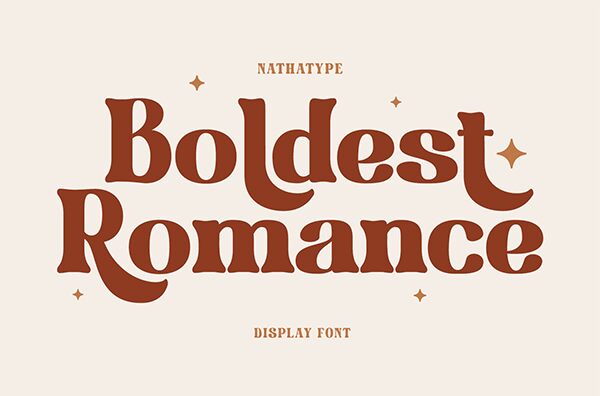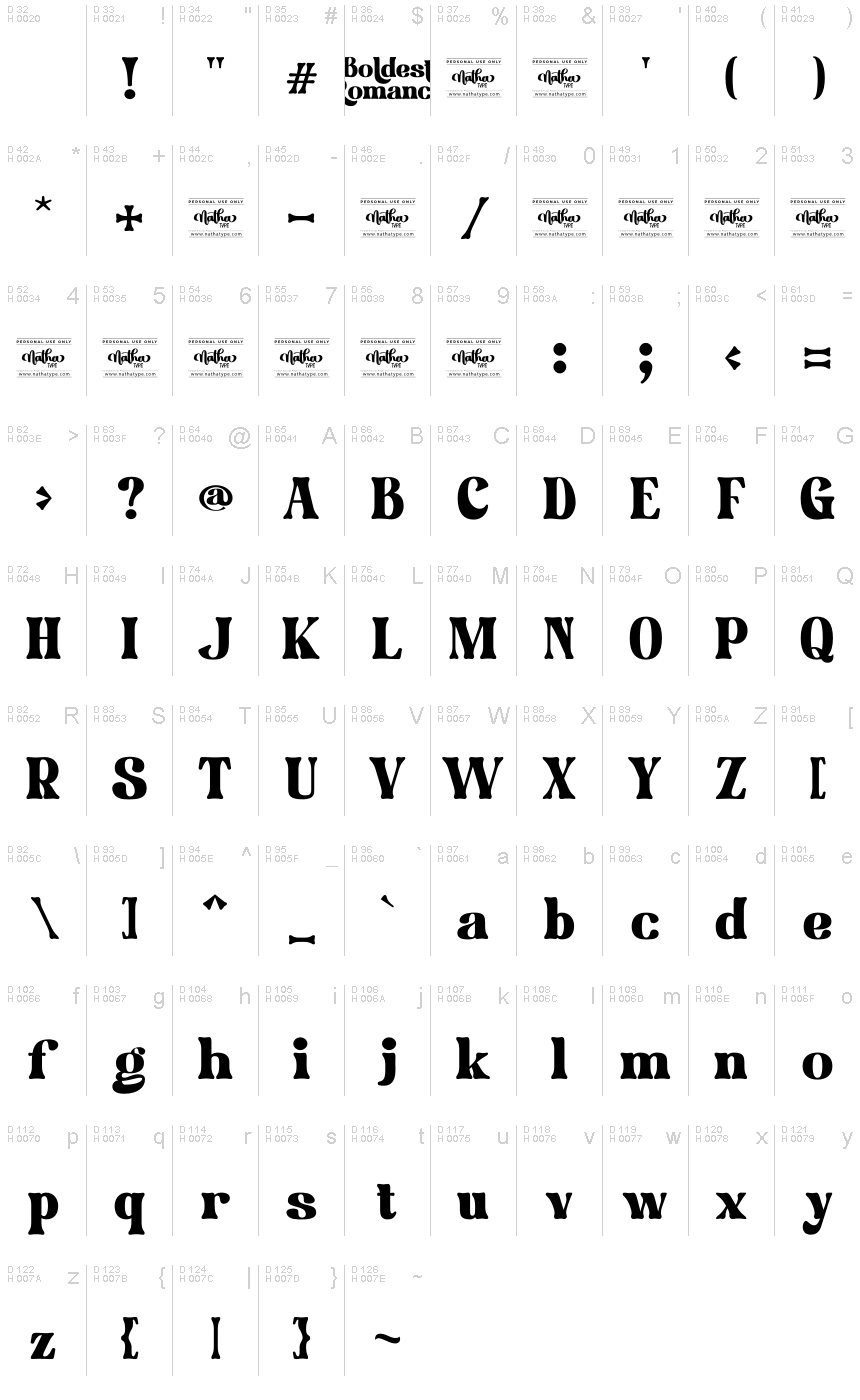
Boldest Romance, a captivating display font crafted by Nathatype, radiates a bold, retro-inspired elegance. With its assertive serif structure and striking weight, this font exudes a powerful, vintage-inspired aesthetic that commands attention. The harmonious interplay of thick and thin strokes creates a visually striking contrast, evoking a sense of timeless sophistication. Boldest Romance's bold presence and dramatic flair make it an impactful choice for attention-grabbing headlines, signage, and branding applications where a strong, distinctive typographic style is desired.
This versatile font lends itself well to a variety of design contexts, from classic editorial layouts to modern, retro-inspired aesthetics. Its bold, retro-infused personality makes Boldest Romance an ideal selection for vintage-themed projects, product packaging, and advertising campaigns seeking to convey a sense of historic charm and timeless appeal. Whether used as a primary typeface or an accent element, Boldest Romance's striking presence is sure to leave a lasting impression.